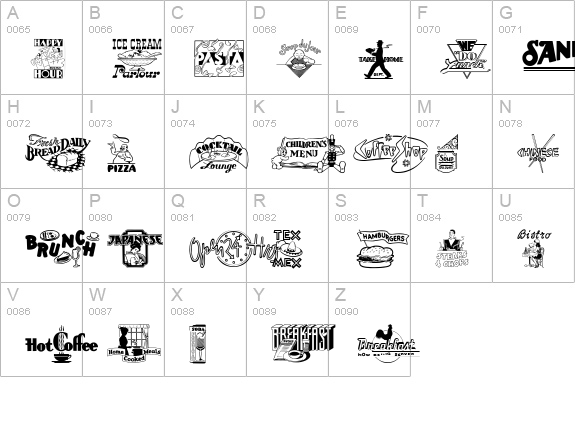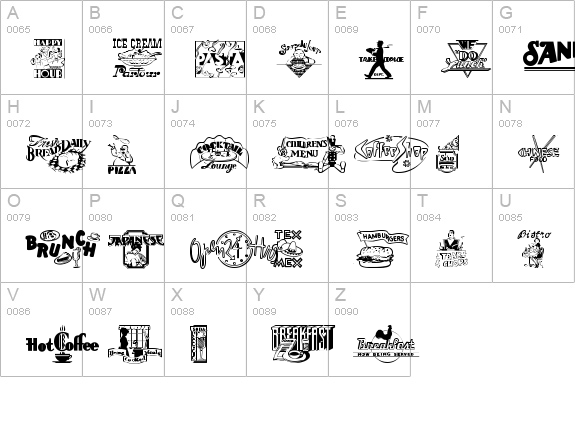
Eating Out Font Details
Introducing Eating Out, a font that will bring a mouthwatering appeal to your designs! This delectable typeface is the perfect blend of style and readability, making it ideal for menus, restaurant signage, food blogs, and more. With its bold and playful letterforms, Eating Out effortlessly captures the essence of dining out, evoking feelings of excitement and anticipation. Each letter is carefully crafted to resemble the artistry of a chef, with smooth curves and sharp edges that create a harmonious balance between elegance and a touch of whimsy. But what sets Eating Out apart from other fonts is its remarkable feature - it's absolutely free! Yes, you read that right. Eating Out is freely available to download at FontsMarket.com, allowing you to indulge in this delectable font without breaking the bank. From appetizers to desserts, Eating Out font is versatile enough to complement any culinary concept. Its wide range of glyphs ensures that you'll find the perfect combination of characters to suit your needs, whether you're designing a sophisticated menu for a five-star restaurant or a fun and vibrant poster for a food festival. With Eating Out font, your designs will sizzle with visual appeal, enticing your audience to take a bite and explore the world of gastronomy. So why wait? Download Eating Out font for free at FontsMarket.com and let your creativity run wild in the kitchen of design!